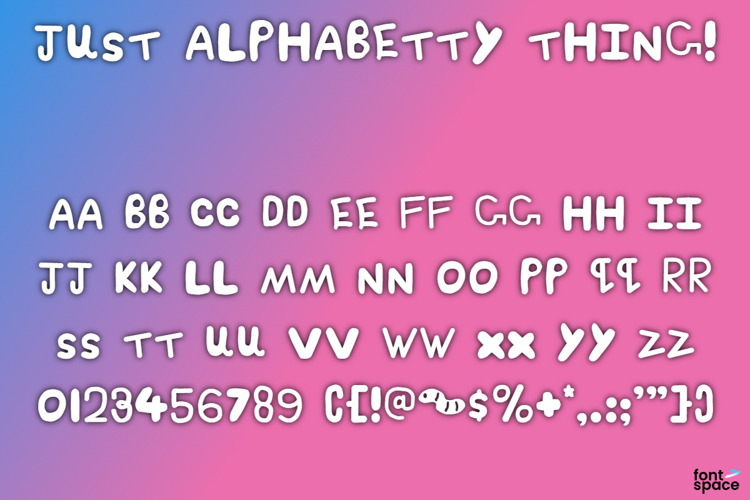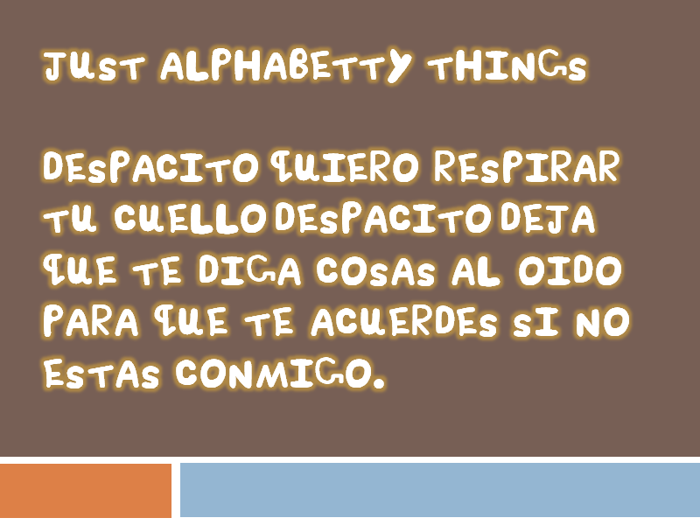
Just Alphabetty Thing! Font
Just Alphabetty Thing is a brand new comic font that is based off of lettering from children's drawings.
This font was made by Heaven Castro Studios using FontForge.